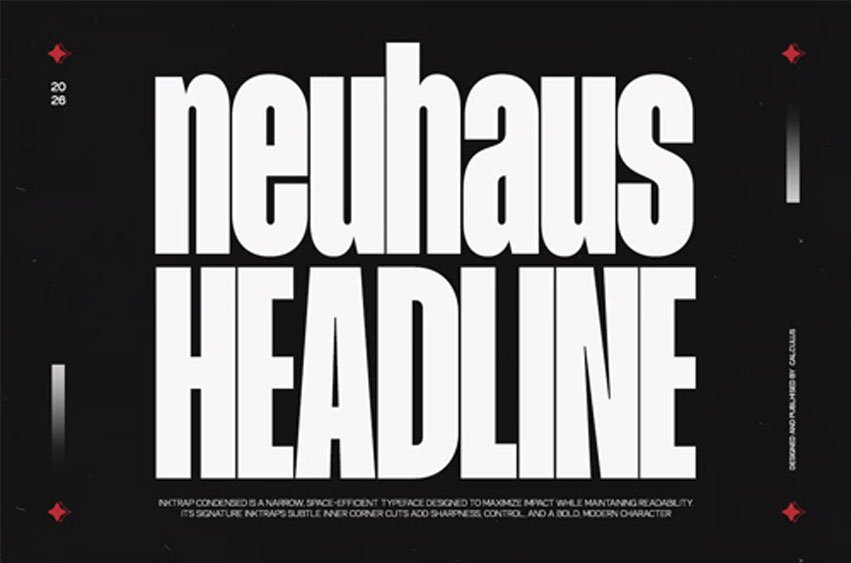
Neuhaus Headline Font is a modern bold condensed typeface crafted to create a strong visual presence with a clean and confident attitude. Designed with compact proportions and precise contemporary details, this font delivers a powerful typographic voice that stands out in headline-driven layouts and large-scale compositions. Its solid construction and modern geometry help create striking titles that feel structured, dynamic, and highly memorable.
Carefully developed to balance readability with expressive visual strength, CC Neuhaus Headline performs exceptionally well across branding, posters, editorial headlines, logo design, packaging, and digital interfaces. The condensed form allows designers to maximize space efficiency while maintaining a bold silhouette, while its refined cuts enhance a professional and forward-thinking design aesthetic suited for modern creative projects.
- Modern Headline Typeface Style
- Bold Condensed Character
- Compact Letterform Proportion
- Clean Contemporary Details
- Strong and Confident Visual Impact
- Geometric Modern Sans Construction
- Ideal for Headlines & Large Typography
- Suitable for Branding, Poster, Logo, Packaging
- Optimized for Print and Digital Design
- Striking Contemporary Appearance
CC Neuhaus Headline delivers a modern typographic punch — condensed, bold, and purposefully designed to lead visual hierarchy with confidence.